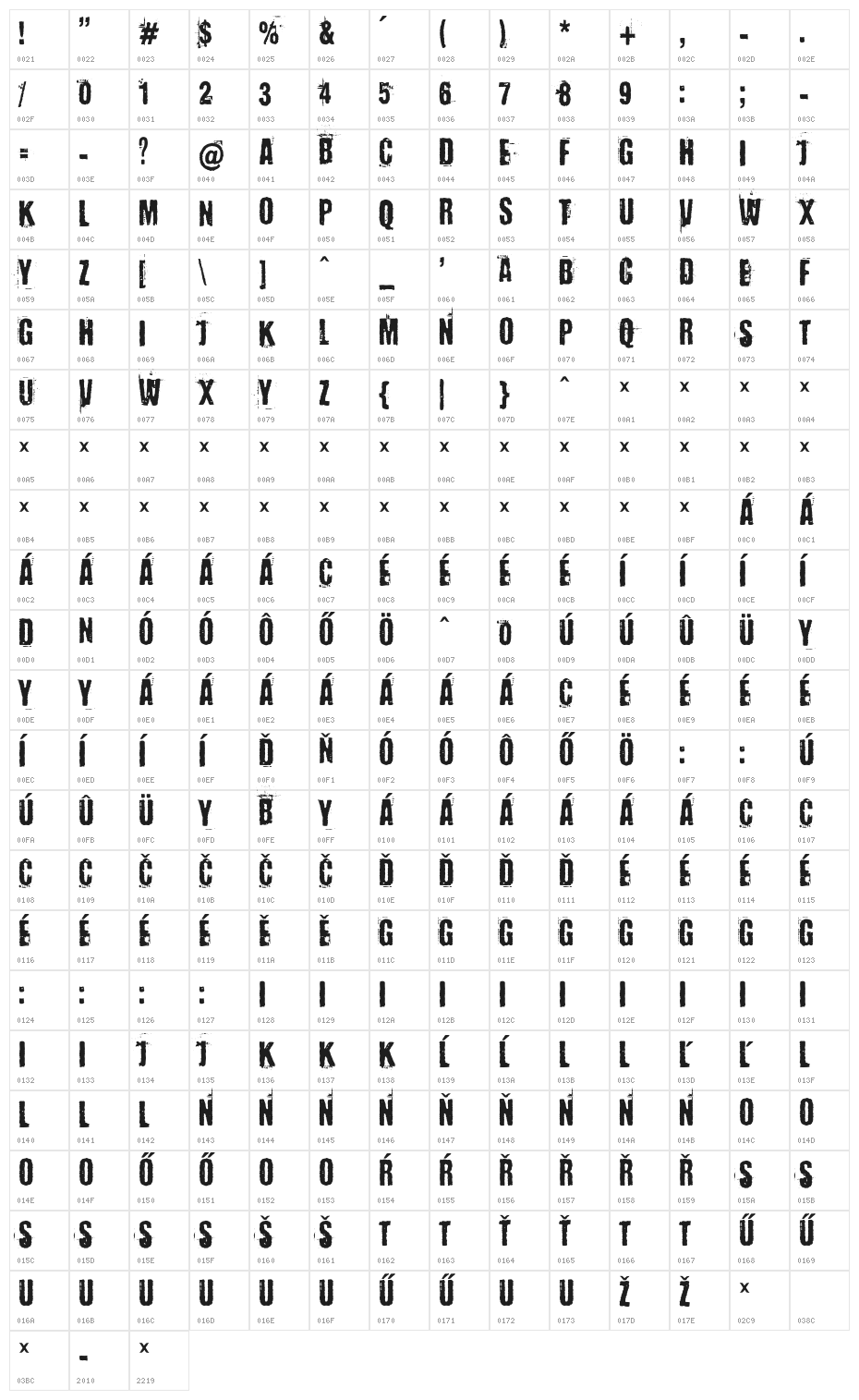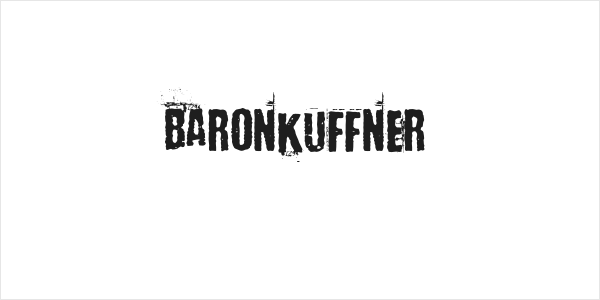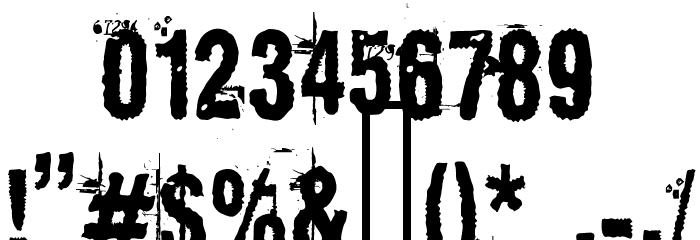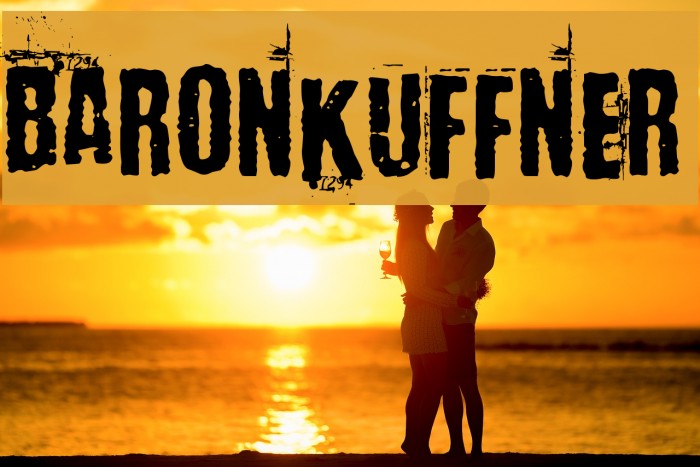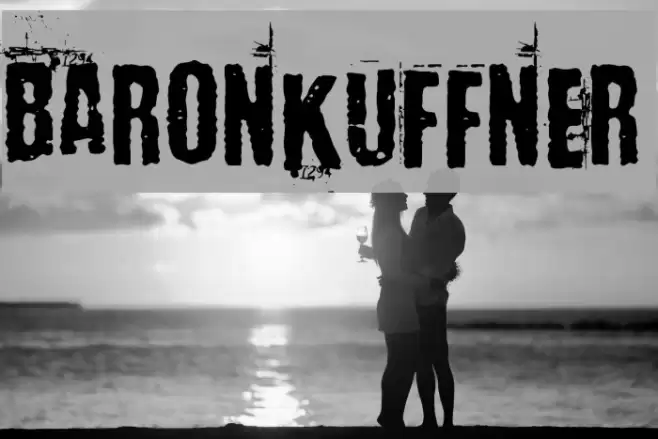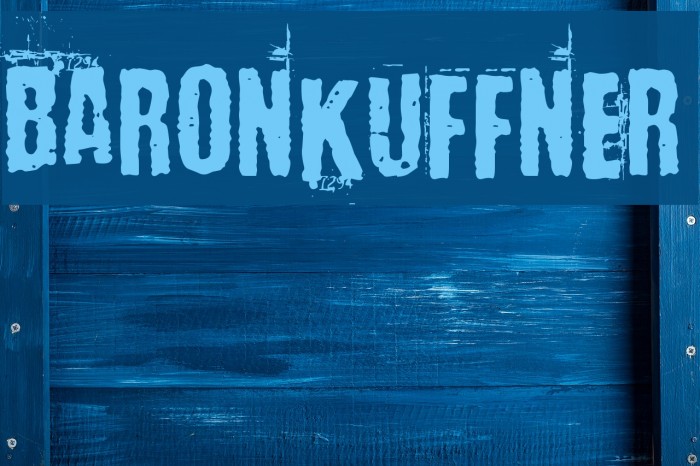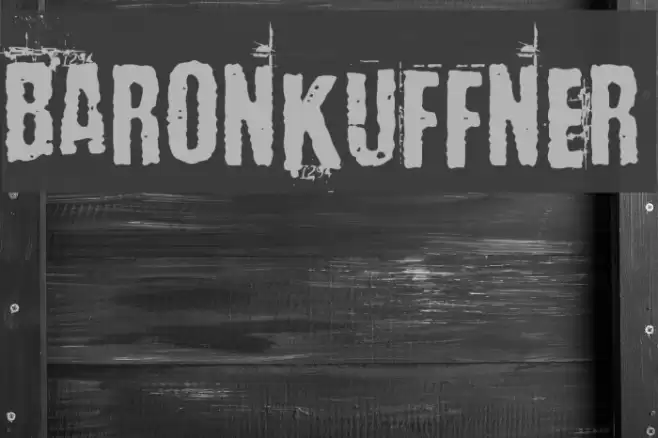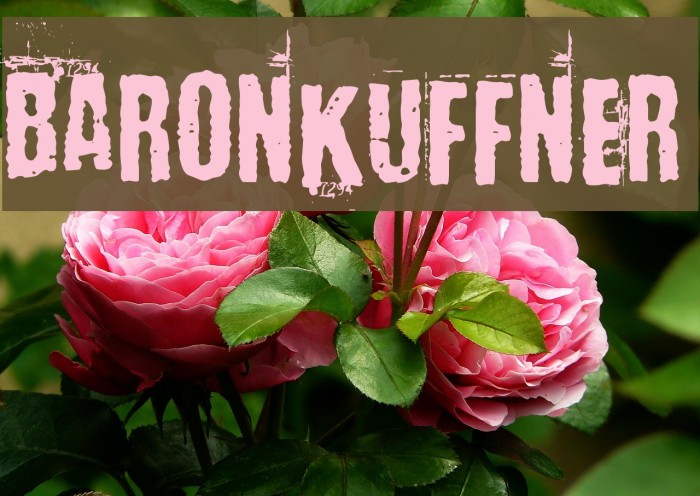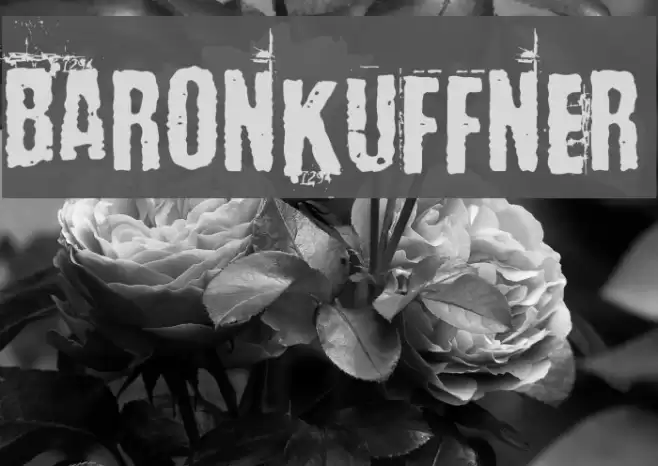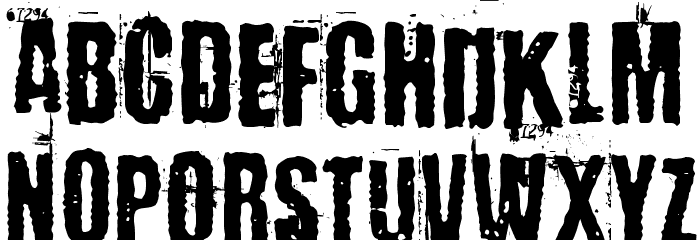
BaronKuffner Font
BaronKuffner Description
This font features a bold and distressed style, characterized by its rough, textured appearance that gives it a vintage and rugged feel. The uppercase letters are prominent and impactful, making it ideal for designs that require a strong visual presence. The numbers and special characters maintain the same distressed aesthetic, ensuring consistency across all elements. The font's unique style is reminiscent of old printing techniques, adding a touch of nostalgia and authenticity to any project.
| Overall Style | Vintage |
| Proposed Projects | Ideal for poster designs, album covers, vintage-themed branding, and any project requiring a strong, impactful typeface. |